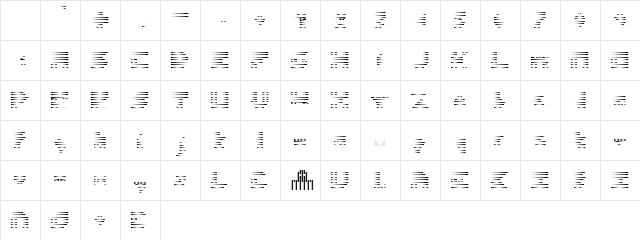
Complete Paper UltraLight glyph index. Displaying only characters natively supported by Paper UltraLight font.
Paper is a composed and adaptable typeface that performs quietly and consistently across a wide range of design contexts. Its slender proportions lend an understated elegance to any composition.